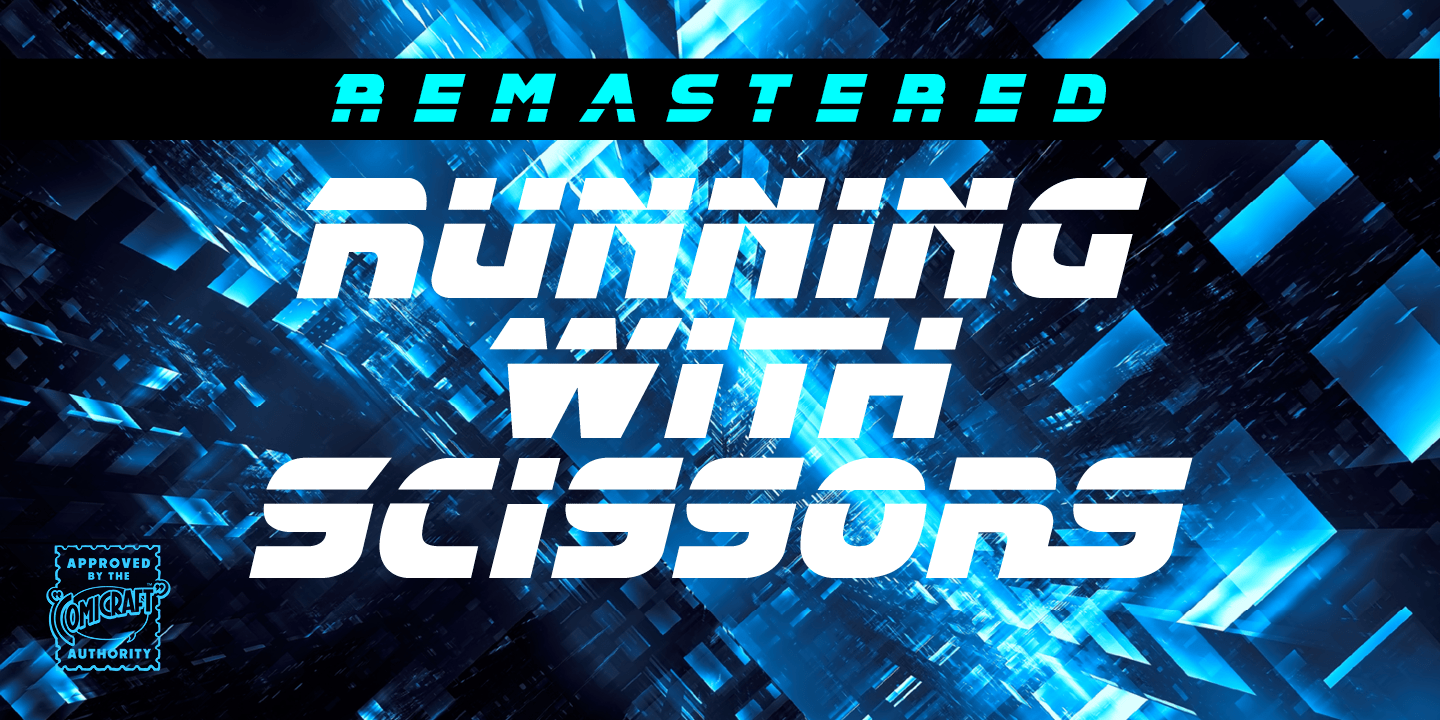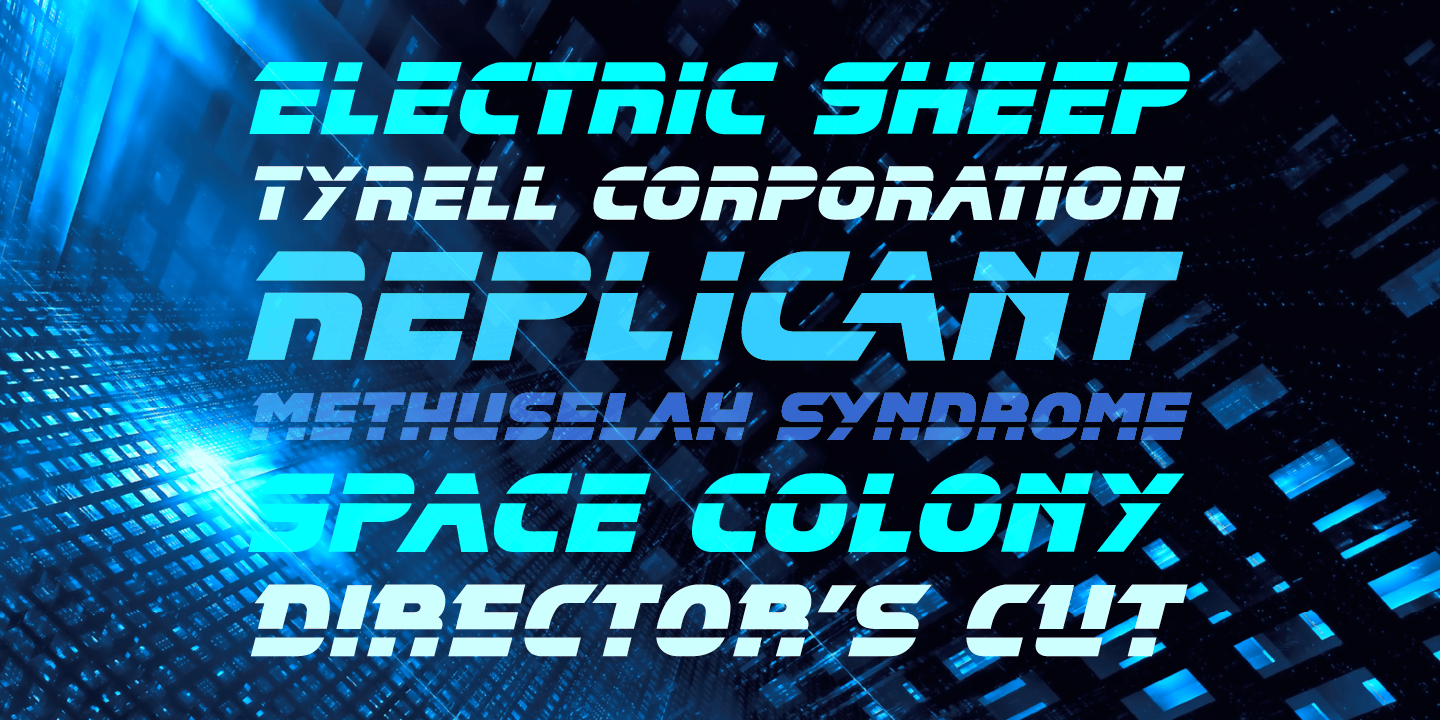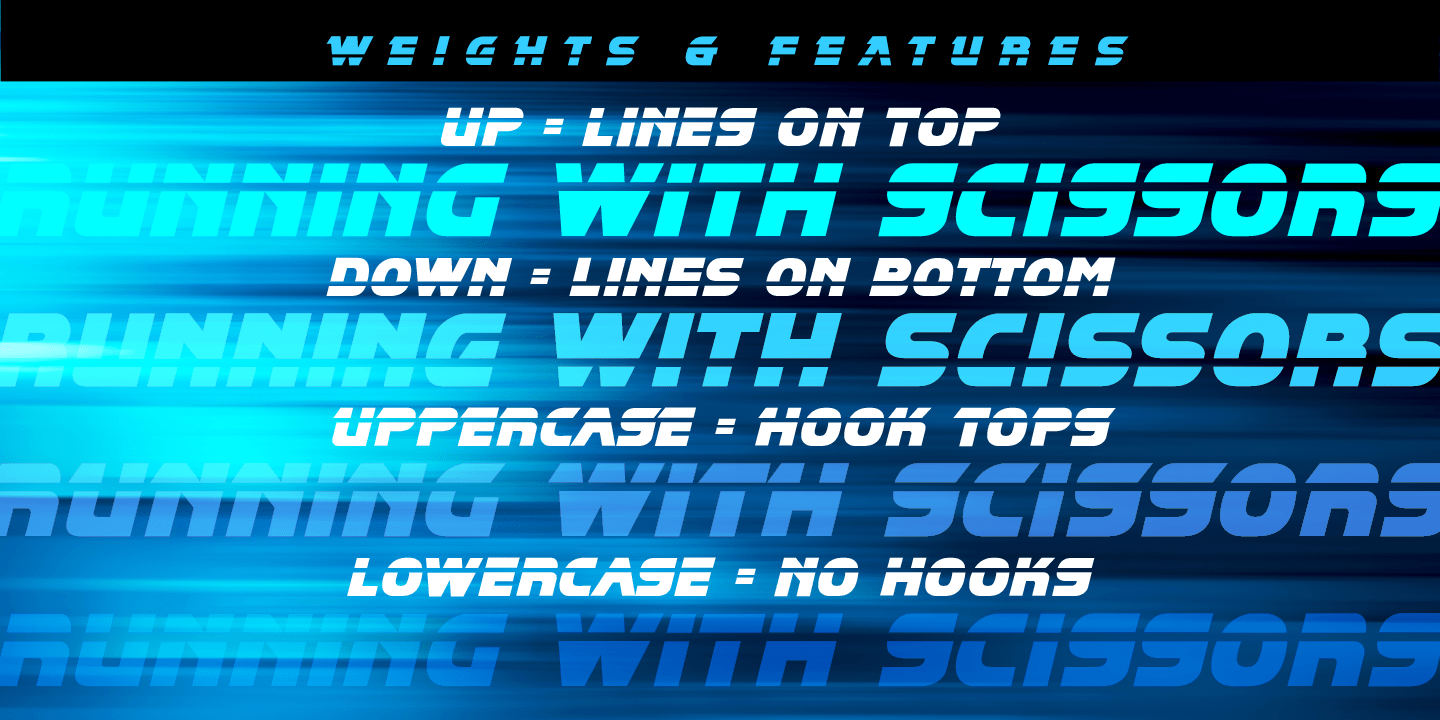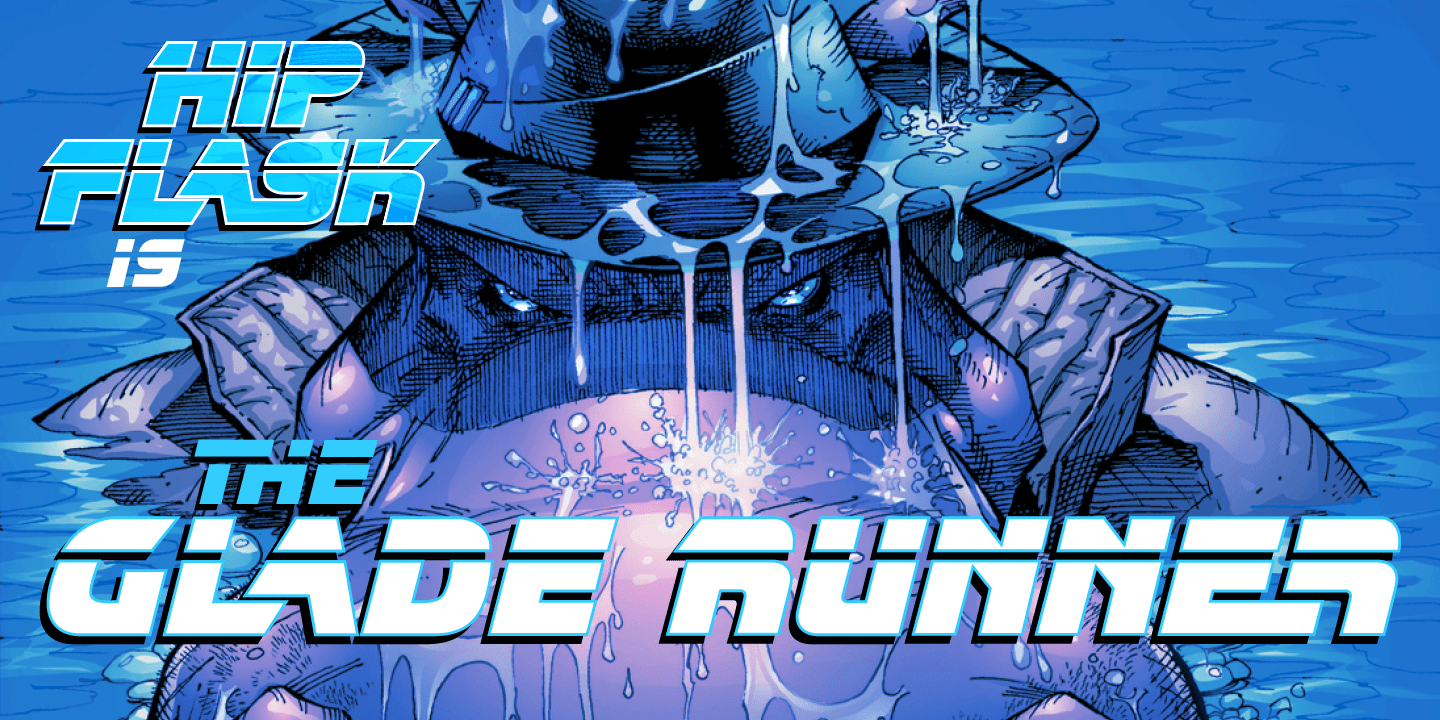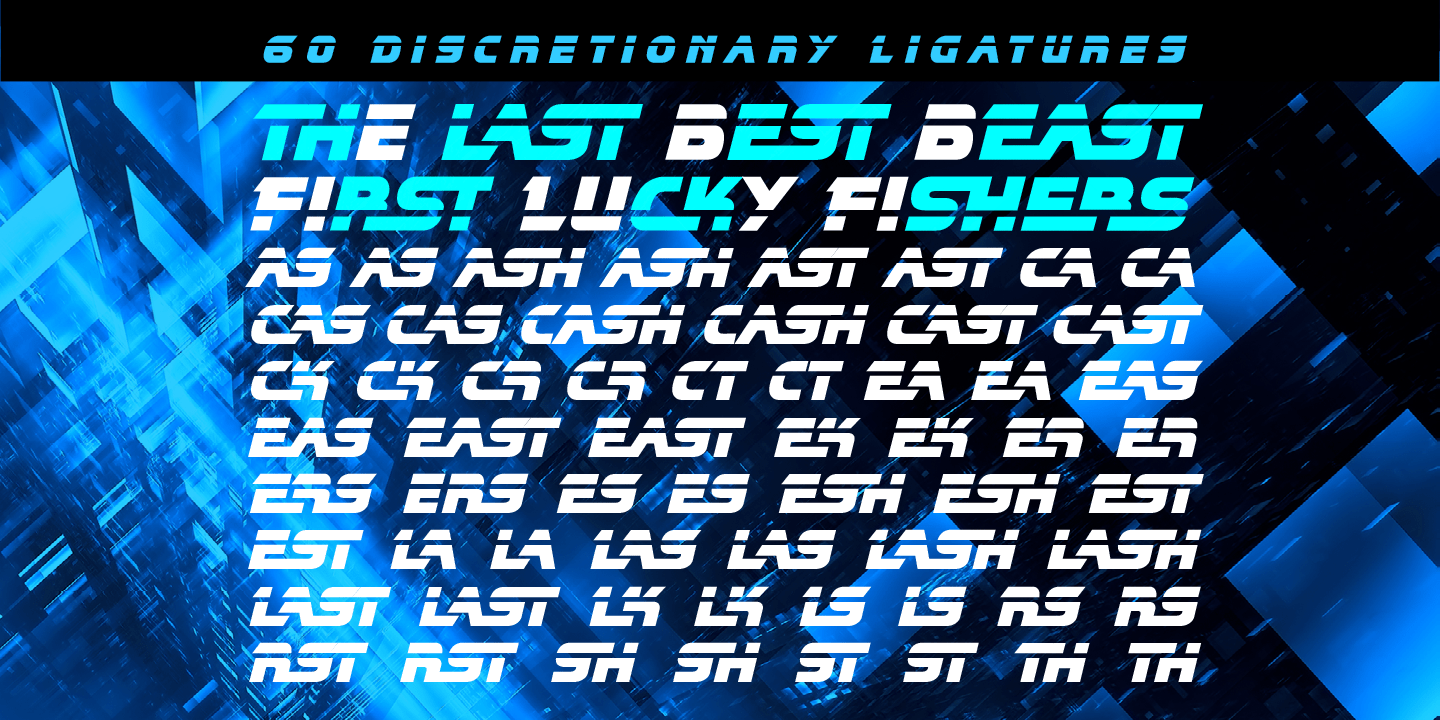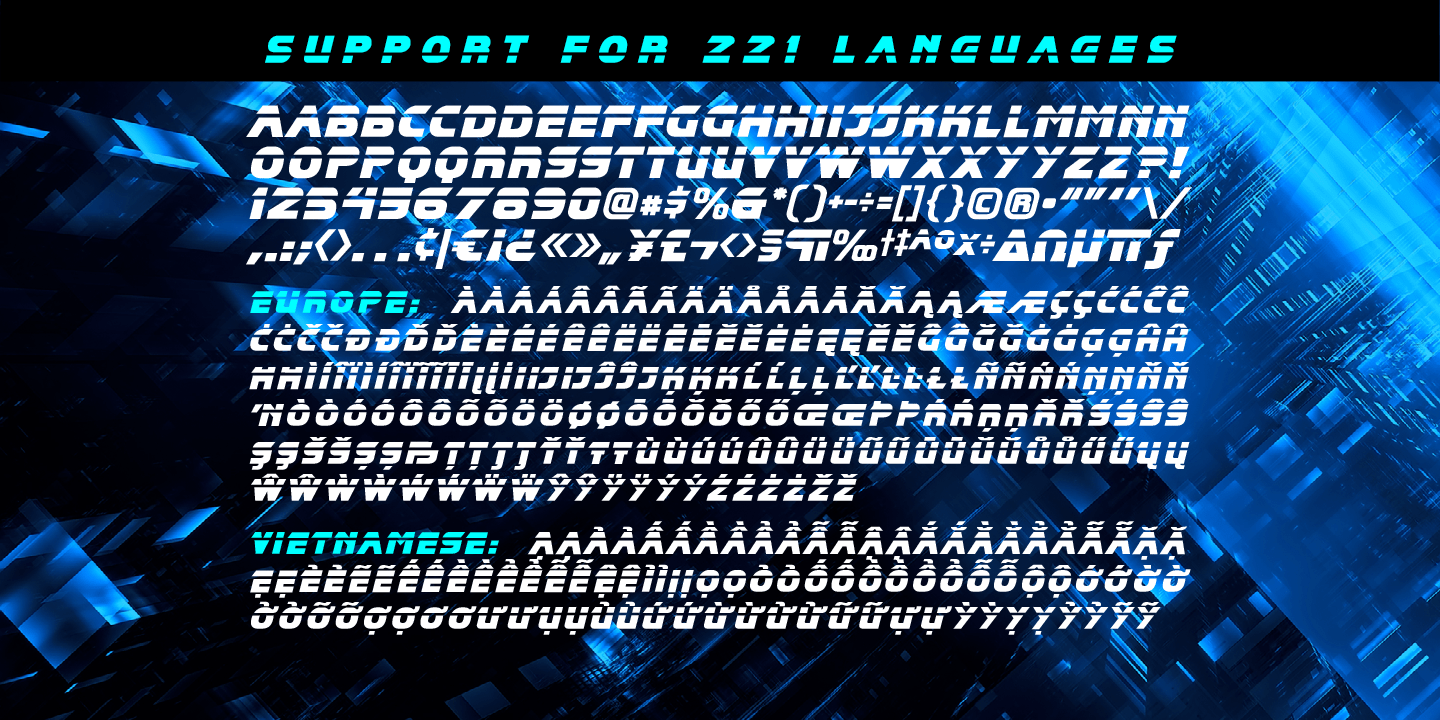
Running with Scissors
Font Family by Comicraft Fonts
Your Mama told you not to do it, so you just KNOW this font will be good for you! In fact, you might say it's a Cut Above the Rest. OUCH! Blade Runners: Be careful, you don't want to retire a human by mistake!